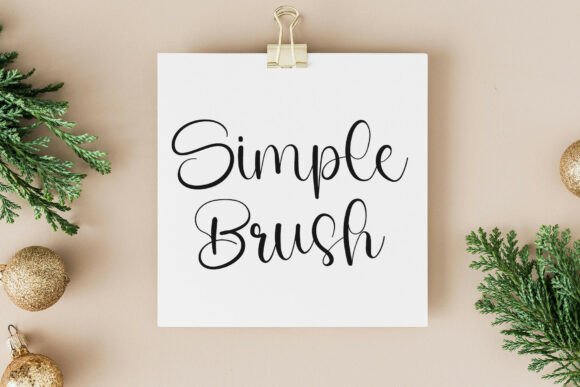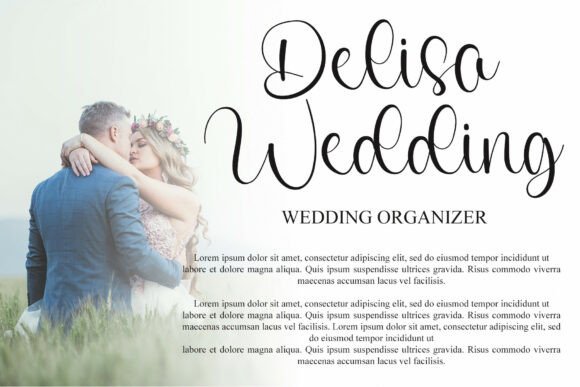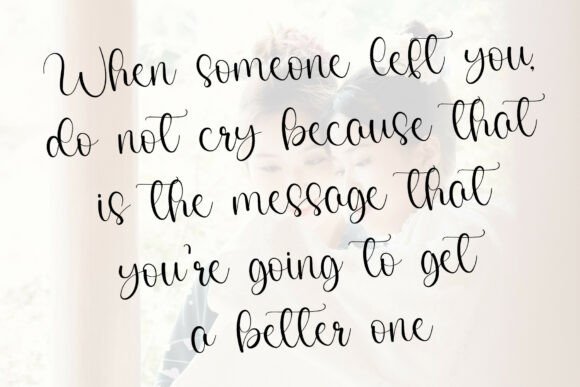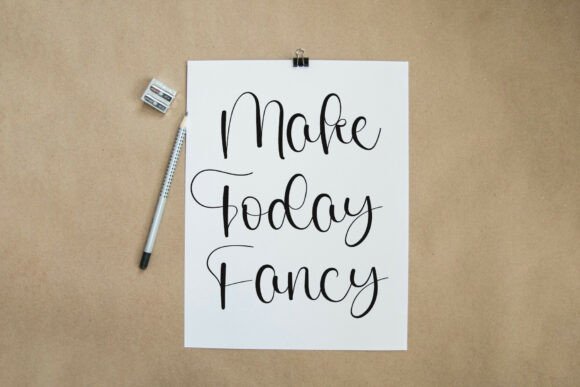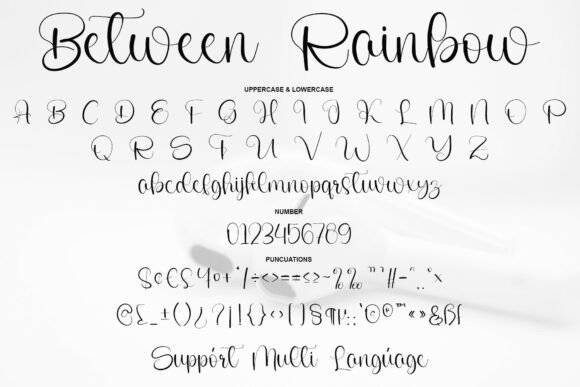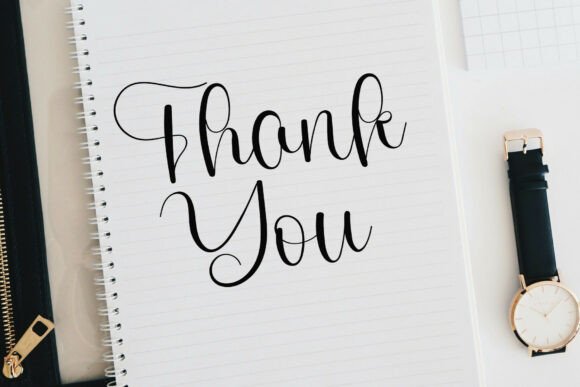
Introducing Between Rainbow Font: Elevate Your Designs with Timeless Elegance
In the world of typography, a font can make or break a design. For designers and crafters seeking to add a touch of sophistication and style to their projects, the Between Rainbow Font is an exceptional choice. This beautifully crafted handwritten font boasts a contemporary atmosphere, impeccable form, and a classic calligraphy-inspired aesthetic that will elevate your work to new heights.
A Font Inspired by Timeless Classic Calligraphy
Between Rainbow Font draws inspiration from the elegance of traditional calligraphy, bringing a sense of refinement and luxury to your designs. With its balanced and varied letterforms, this font is meticulously designed to enhance the beauty of your projects, whether you’re working on branding, packaging, or digital media.
What Makes Between Rainbow Font Special?
- PUA Encoding: Between Rainbow Font is PUA (Private Use Area) encoded, which means you can easily access all the amazing glyphs and ligatures without any hassle. This feature allows for greater flexibility and creativity in your designs.
- Contemporary yet Classic: The font strikes a perfect balance between modernity and timelessness, making it versatile for a wide range of projects, from modern branding to traditional crafts.
- Handwritten with Love: Each letterform is carefully crafted by hand, giving the font a personal touch that is sure to resonate with your audience.
- Balanced and Varied: The font’s design ensures that your text remains legible and aesthetically pleasing, with a variety of letterforms that keep your designs fresh and engaging.
Applications of Between Rainbow Font
The versatility of Between Rainbow Font makes it suitable for a multitude of design applications, including:
- Branding and Logos: Create memorable brand identities with a touch of elegance.
- Packaging: Stand out on store shelves with beautifully designed product packaging.
- Digital Media: Enhance your website, social media posts, and digital advertisements with stylish text.
- Crafting and DIY Projects: Add a professional touch to your handmade crafts, journals, and art pieces.
Between Rainbow Font is more than just a typeface; it’s a design tool that can transform your projects with its classic elegance and modern appeal. Whether you’re a professional designer or a crafty DIY enthusiast, this font offers the perfect blend of style, versatility, and ease of use. Elevate your designs and make them stand out with the timeless beauty of Between Rainbow Font.